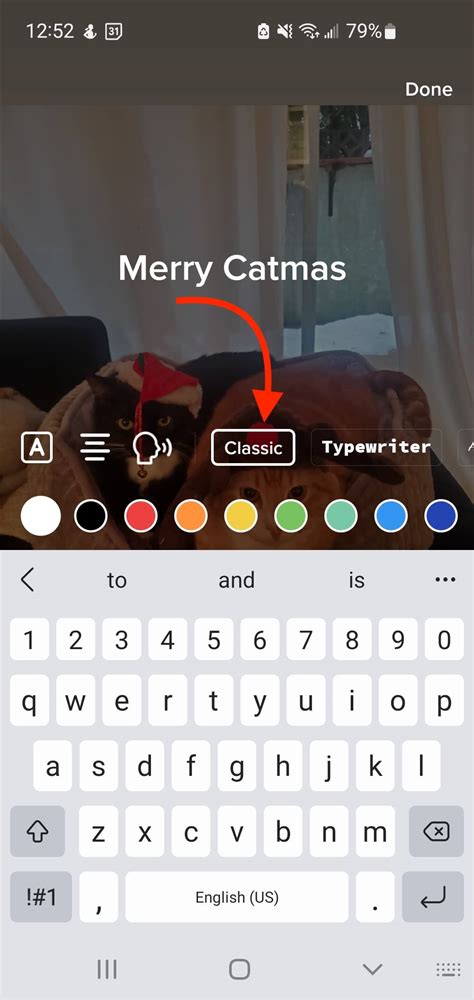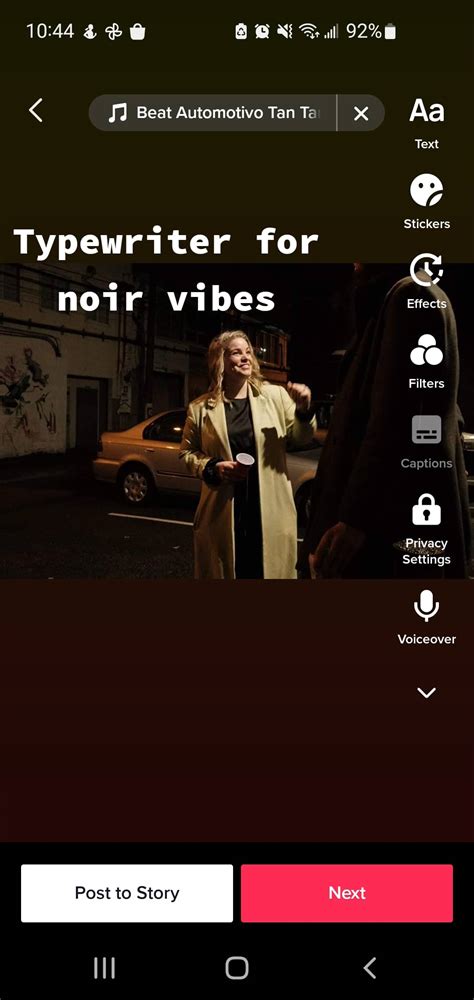
Creating occupy content on short-form picture platforms involve more than just high-quality footage; it demands optic elements that capture aid instantly. One of the most effective ways to distinguish your make is by choose the perfect Font For Tiktok. While the app provides a handful of built-in way, power user oftentimes search unique composition to raise their storytelling, meliorate readability, and conserve a consistent esthetical across their profile. Whether you are aiming for a minimalist aspect, a sheer energetic vibration, or a professional refinement, the right pick of typeface can be the deciding component in whether a watcher break to watch your picture or keep scrolling past it.
The Impact of Typography on Short-Form Video
In the fast-paced creation of societal media, textbook overlayer serve as the principal guide for your audience. A well-chosen baptistery doesn't just communicate a message; it sets the climate. If you are creating a tutorial, a light sans-serif font ensures lucidity. Conversely, if you are post a lifestyle vlog, a more stylized or ornamental font might amend reflect your personality.
Why Customizing Your Text Matters
- Brand Individuality: Coherent use of specific fonts aid follower acknowledge your content immediately in their feed.
- Accessibility: High-contrast, legible composition ensures your content is accessible to everyone, including looker who watch on deaf-mute.
- Engagement: Visually appealing text overlays increase the likelihood of comments and part by append professional production value.
- Hierarchy: Expend different weight and size helps spectator prioritise info, such as highlight a key takeout or a CTA (Call to Action).
Top Font Categories for Your Videos
Select a font style should always aline with your prey hearing and content recess. Below is a crack-up of popular category and when to use them:
| Font Category | Best Utilize For | Vibration |
|---|---|---|
| Minimalist Sans-Serif | Educational content, tidings, tech | Modern, clean, unmediated |
| Bold Serif | Mode, luxury, storytelling | Elegant, timeless, high-end |
| Handwritten/Script | Vlogs, personal diary, citation | Casual, intimate, friendly |
| Retro/Display | Music videos, esthetic concept | Nostalgic, loud, originative |
Tips for Better Text Placement
Yet the most esthetical Font For Tiktok can fail if the placement is improper. Follow these golden rules to optimize your picture layout:
- Avoid the UI Clutter: Continue your text within the "safe zone". Avoid range important words behind the like, input, or part button, or the description region at the bottom.
- Line is Key: Always secure your text colouration stands out against the background video. If your picture is brightly, use a dark font or a pernicious dip shadow to keep shading.
- Duration Management: Do not crowd your picture with too much text at once. Keep messages brief and synchronise them with the tempo of your audio or transition.
- Readability First: While stylise fonts seem outstanding, avoid too complex scripts that are hard to say on small mobile blind.
💡 Tone: Use a uttermost of two font styles per picture to continue your message from looking disorganized and whelm for the spectator.
Surmount the use of text is a central skill for anyone look to turn their digital front. By focusing on legibility, maintaining ocular consistency, and selecting a typeface that aline with your specific niche, you create a more professional and captivating viewing experience. Experimentation with different weights, colour, and positioning to see what resonates most with your unique hearing. Remember that the ultimate destination of any ocular element is to back your content, so let your contented shine by habituate a unclouded and effectual style that makes your videos stand out in a free-enterprise landscape.